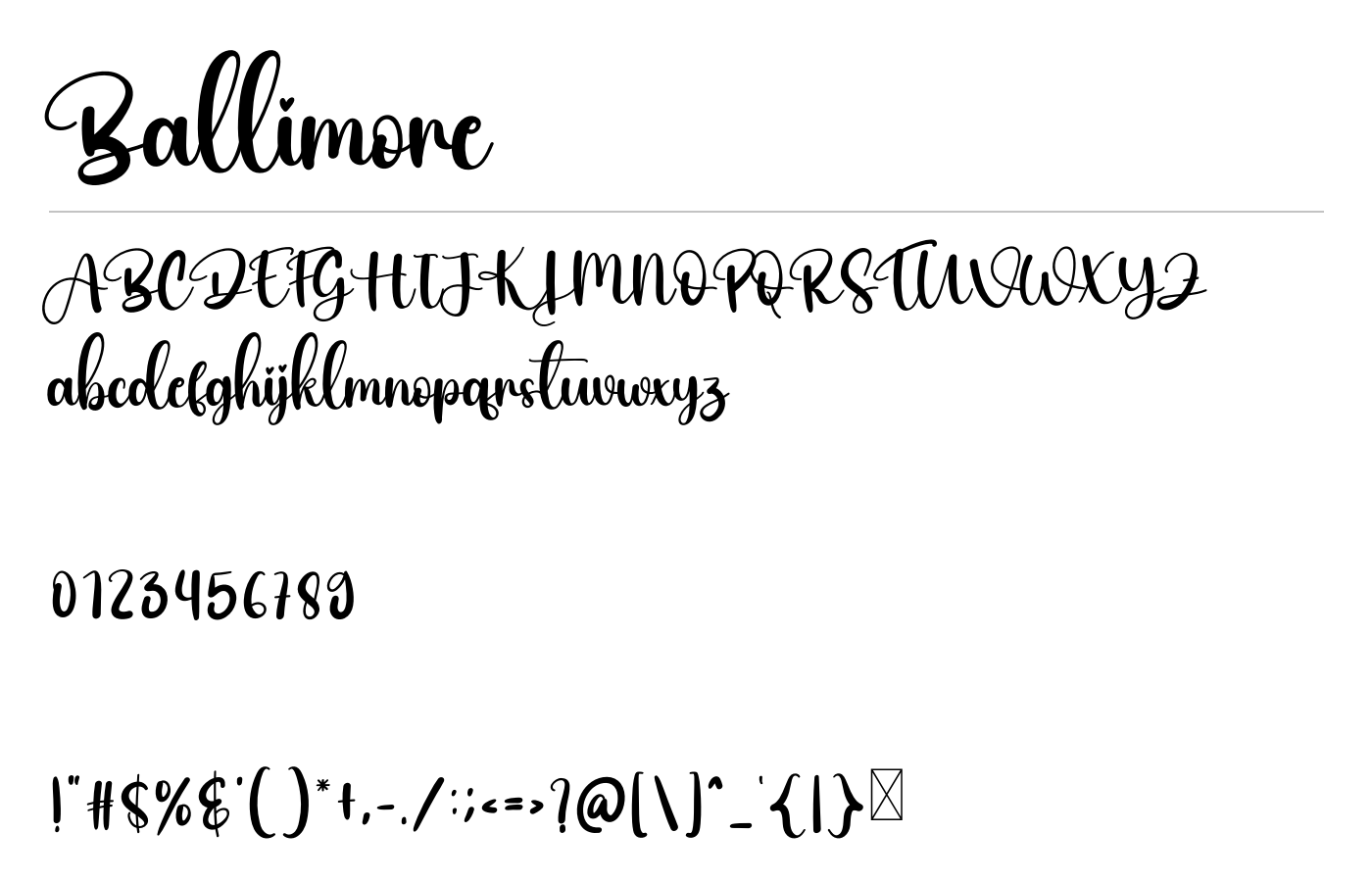
Ballimore is a lively and stylish script font with a friendly, handwritten feel. Its smooth strokes, moderate contrast, and playful looped characters make it perfect for invitations, branding, and creative projects that want to convey warmth and personality. This font works beautifully in headlines, logos, and packaging where a bold yet approachable script style is desired.
Ballimore Font
About Ballimore Font